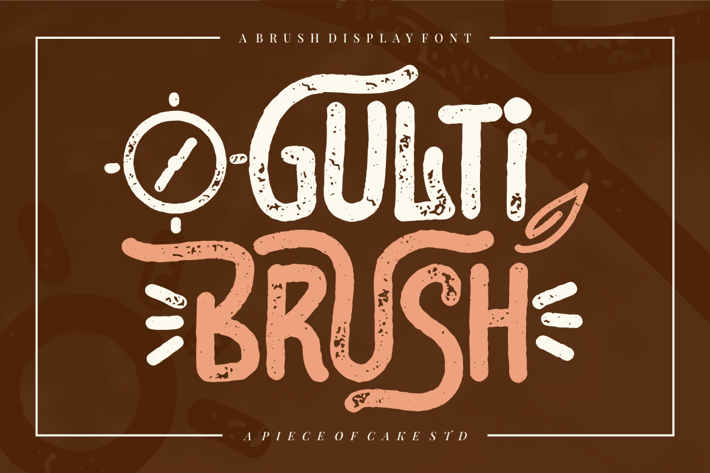
Gulti Brush - A Display Font
Introducing, Gulti Brush is a textured display font suitable for your design project needs, such as; social media posts, quotes, overlays on images, tagline, logos, posters, print needs, website banners, and more.
A set of uppercase and lowercase glyphs
Number, symbol, and punctuation
Alternate
Swashes